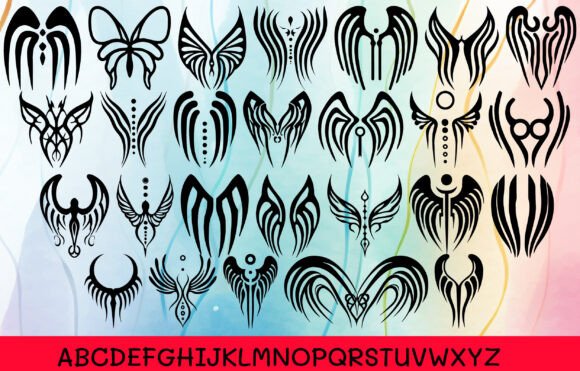
The Heavenly Charm of Angel Wings Font
Have you ever been in the middle of a design project, and suddenly, you just can’t seem to find the right font to bring your vision to life? I recall a particularly frustrating moment when a client asked for a custom wedding invitation design, and I was stuck on finding the perfect touch of elegance. That’s when I stumbled upon the Angel Wings Font — a game-changer for adding a dash of creativity and sophistication to any project.
A Personal Review of Angel Wings Font
• ✨ Unique and Hand-Drawn Designs: The Angel Wings Dingbats Fonts collection boasts 26 unique, hand-drawn wing designs, each representing a letter from A to Z. This ensures that your designs stand out with a personal touch.
• ✅ Versatility: Perfect for a wide range of projects, from crafts and digital art to custom designs, these fonts offer the flexibility needed for various creative endeavors.
• 💫 Elegance and Whimsy: The fonts add a touch of elegance and whimsy, making them ideal for projects that require a bit of heavenly charm.
While the Angel Wings Font is incredibly versatile and charming, there are a few minor considerations:
• 🤔 Glyphs and OpenType Features: Some users might find navigating the glyphs and OpenType features a bit challenging at first. However, once you get the hang of it, it’s smooth sailing.
• ⚠️ Limited Use in Certain Contexts: Given its distinctive style, the font might not be suitable for projects requiring a more formal or traditional look.
The Backstory of Angel Wings Font
The Angel Wings Font was inspired by the delicate beauty of angel wings, aiming to bring a piece of heaven to your designs. The creator, a passionate typographer and designer, sought to craft a font that not only represented elegance and grace but also offered a playful touch of whimsy. Through meticulous hand-drawing of each wing design, the font was brought to life, offering a unique and personal touch to any project.
Does Angel Wings Font include both uppercase and lowercase letters? Angel Wings Font features 26 unique designs corresponding to uppercase letters (A-Z), offering a comprehensive set for your design needs.
Is there a way to access more glyphs or variations? Yes, through OpenType features or glyph panels in compatible software, you can access and explore the various wing designs to enhance your projects.
The Angel Wings Font is more than just a collection of wing designs — it’s a gateway to adding a touch of elegance, whimsy, and creativity to your projects. Whether you’re a designer, crafter, or hobbyist, this font offers the versatility and charm needed to bring your visions to life.